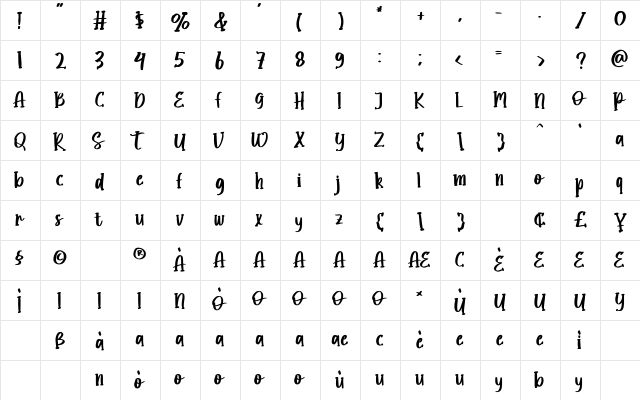
Ghostly Regular
Design Context for Ghostly Typeface
Ghostly is a composed and adaptable typeface that performs quietly and consistently across a wide range of design contexts.